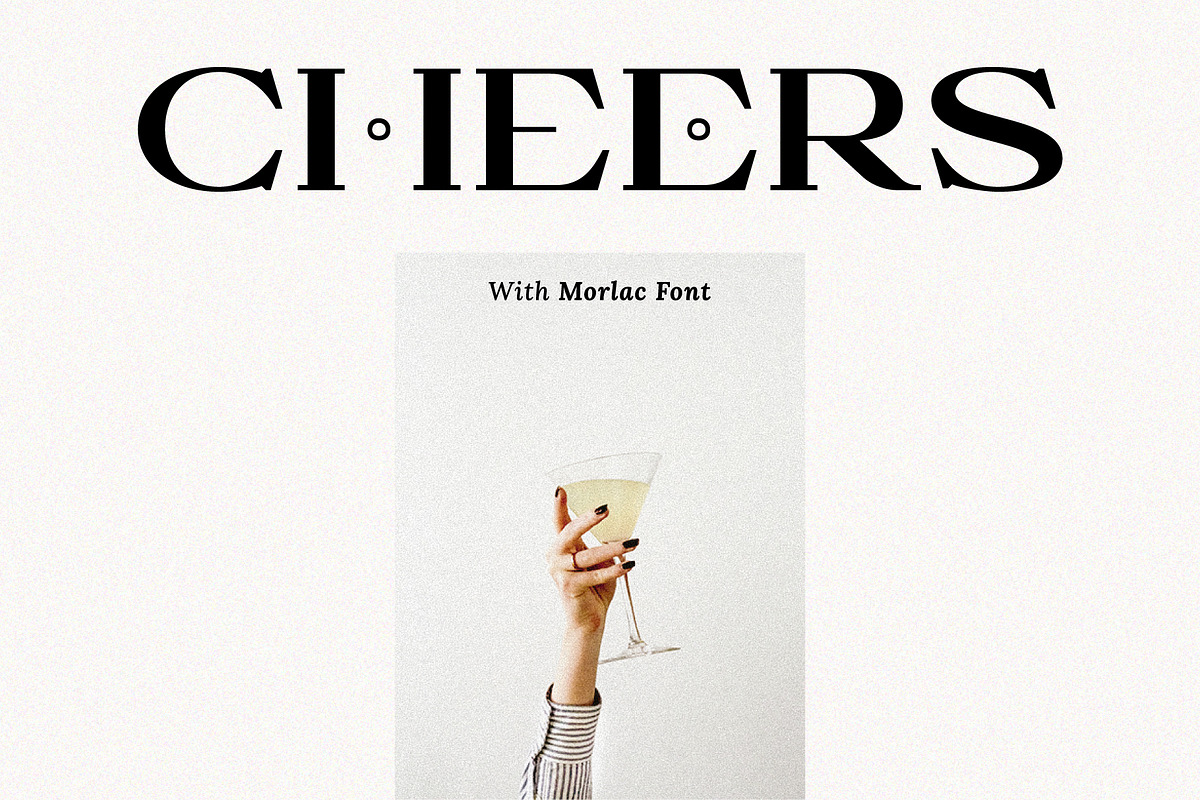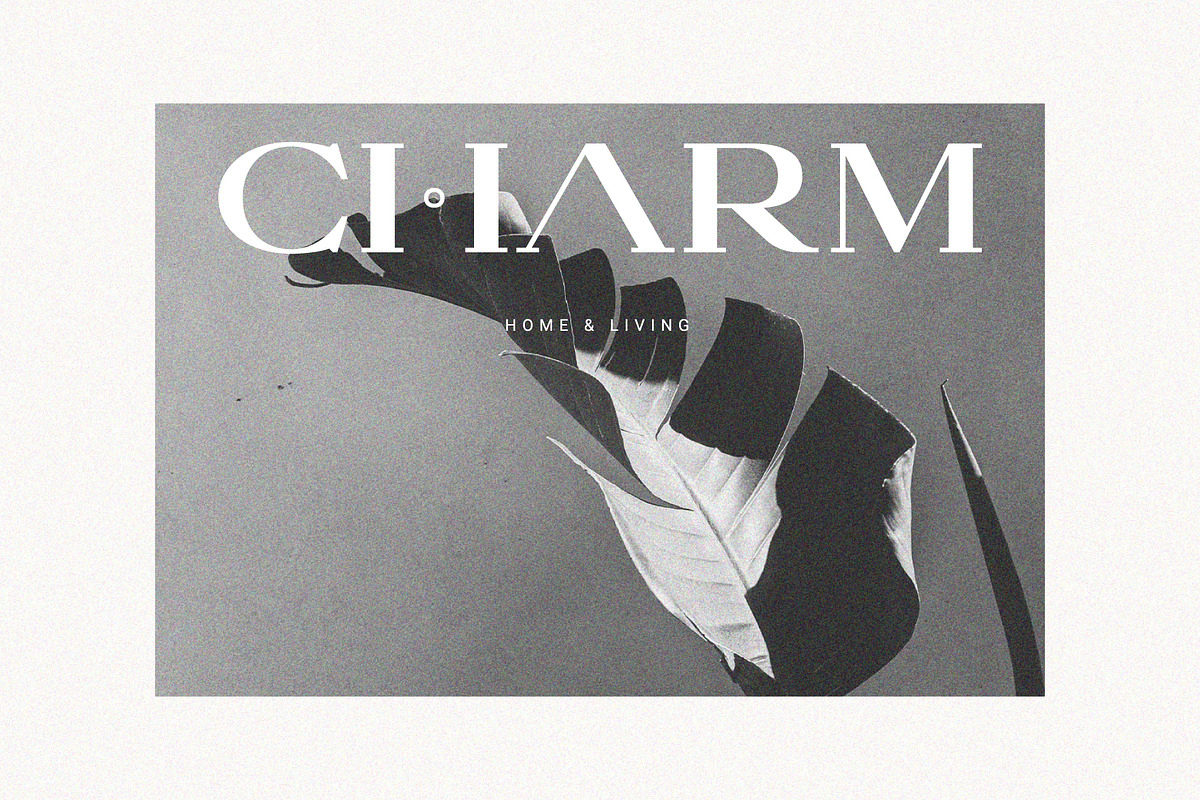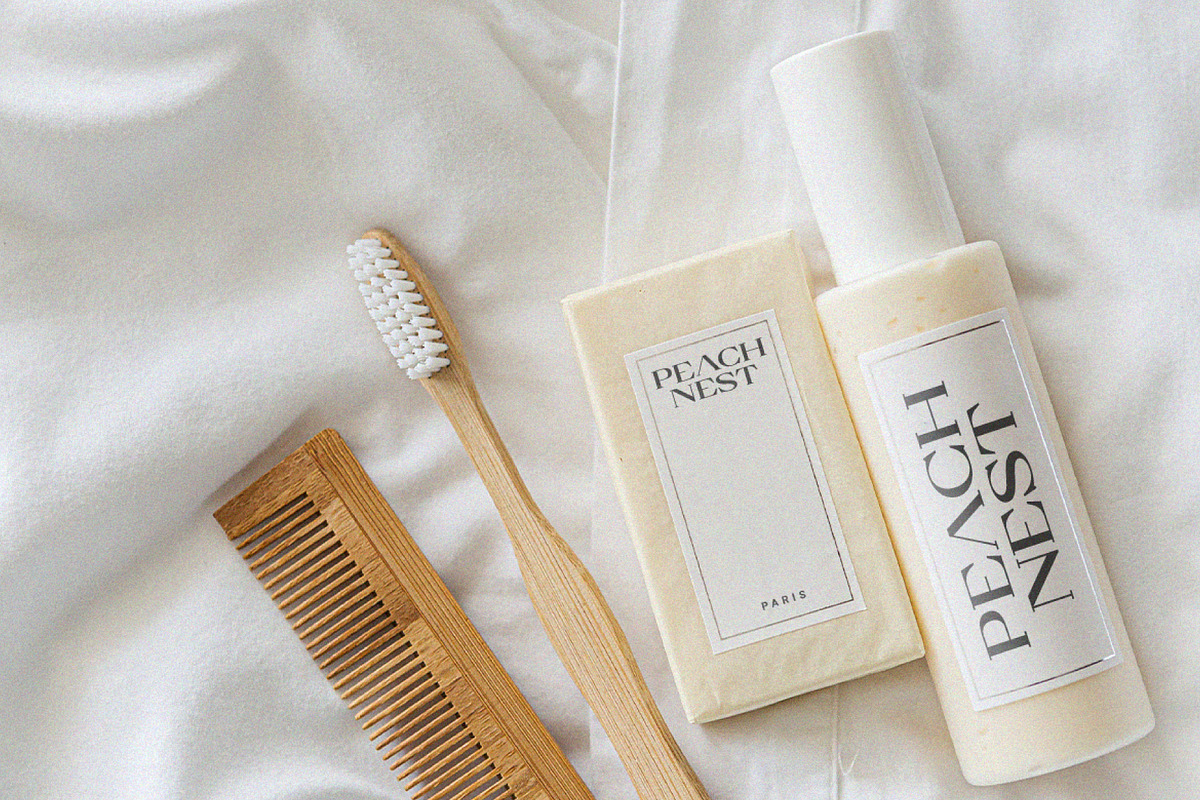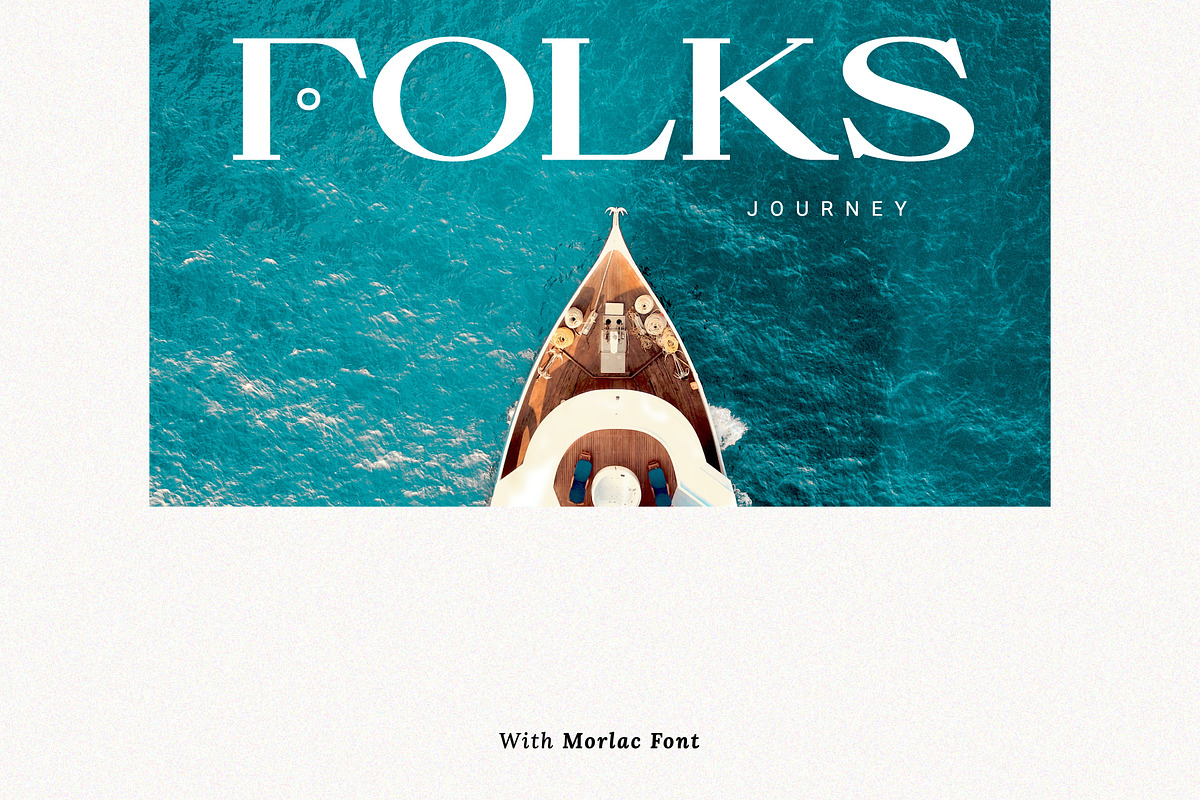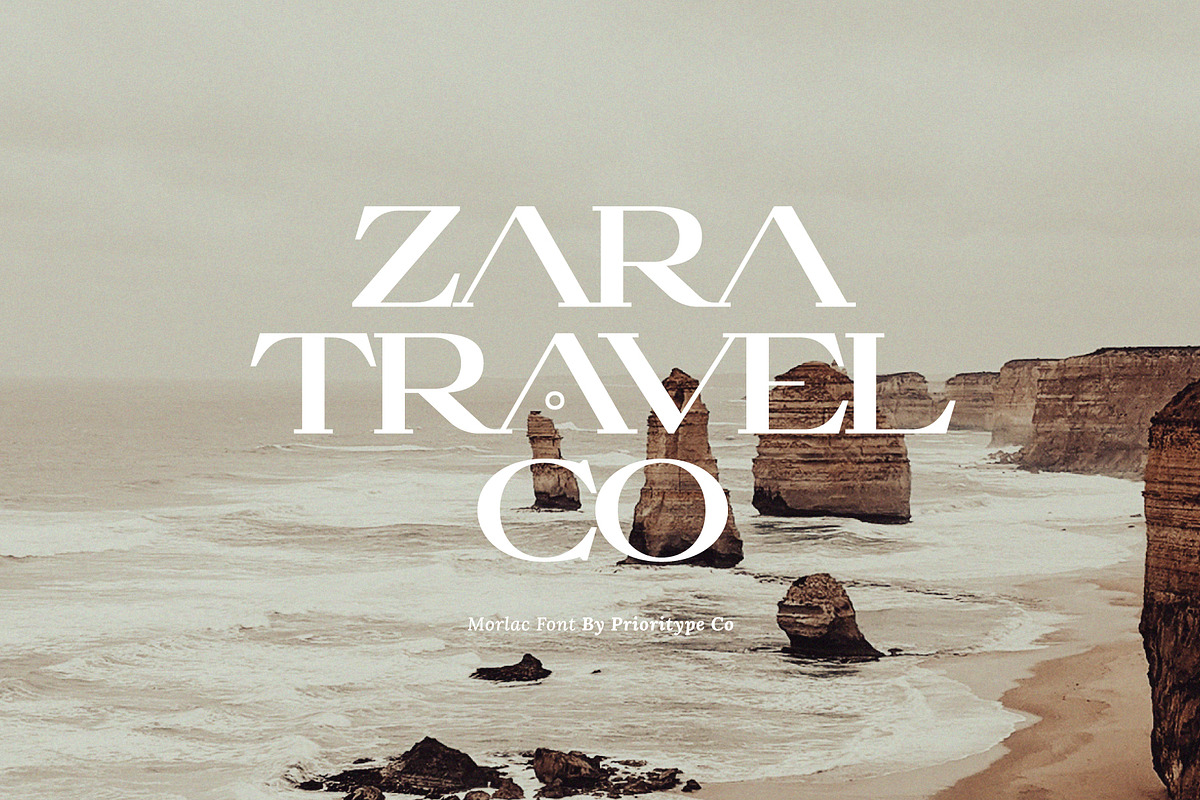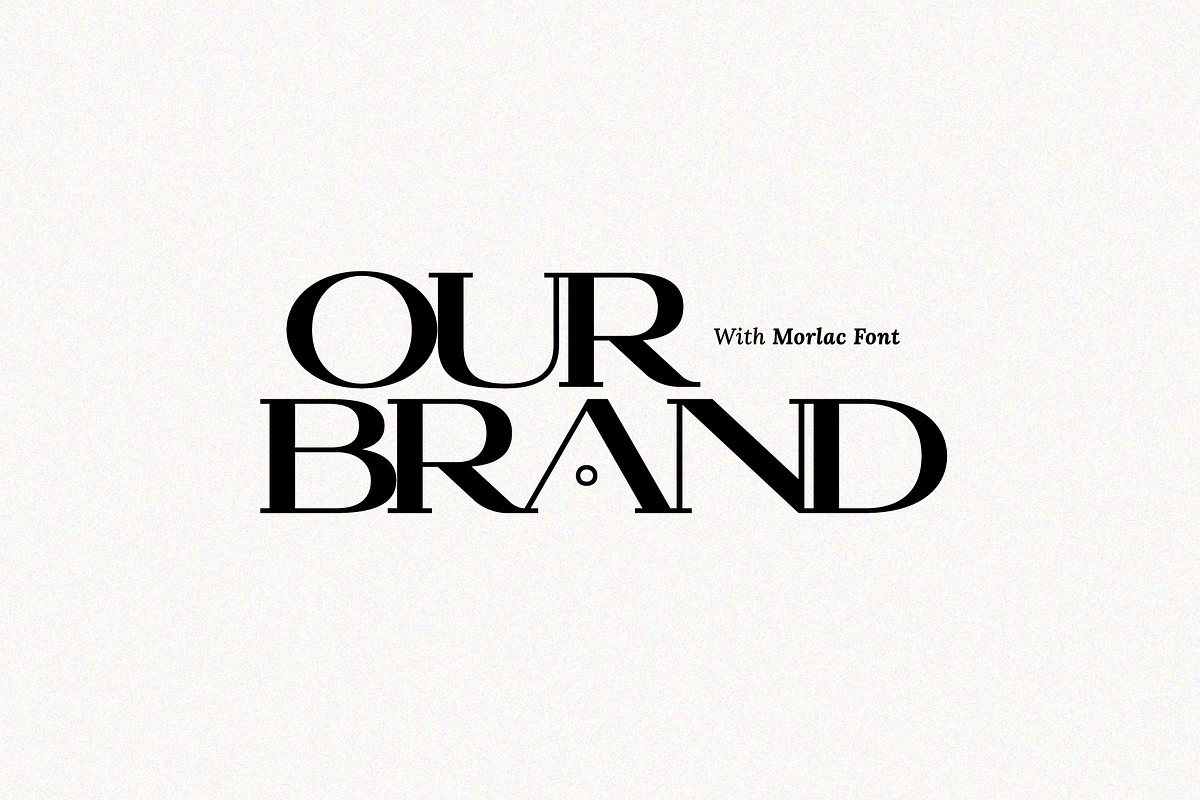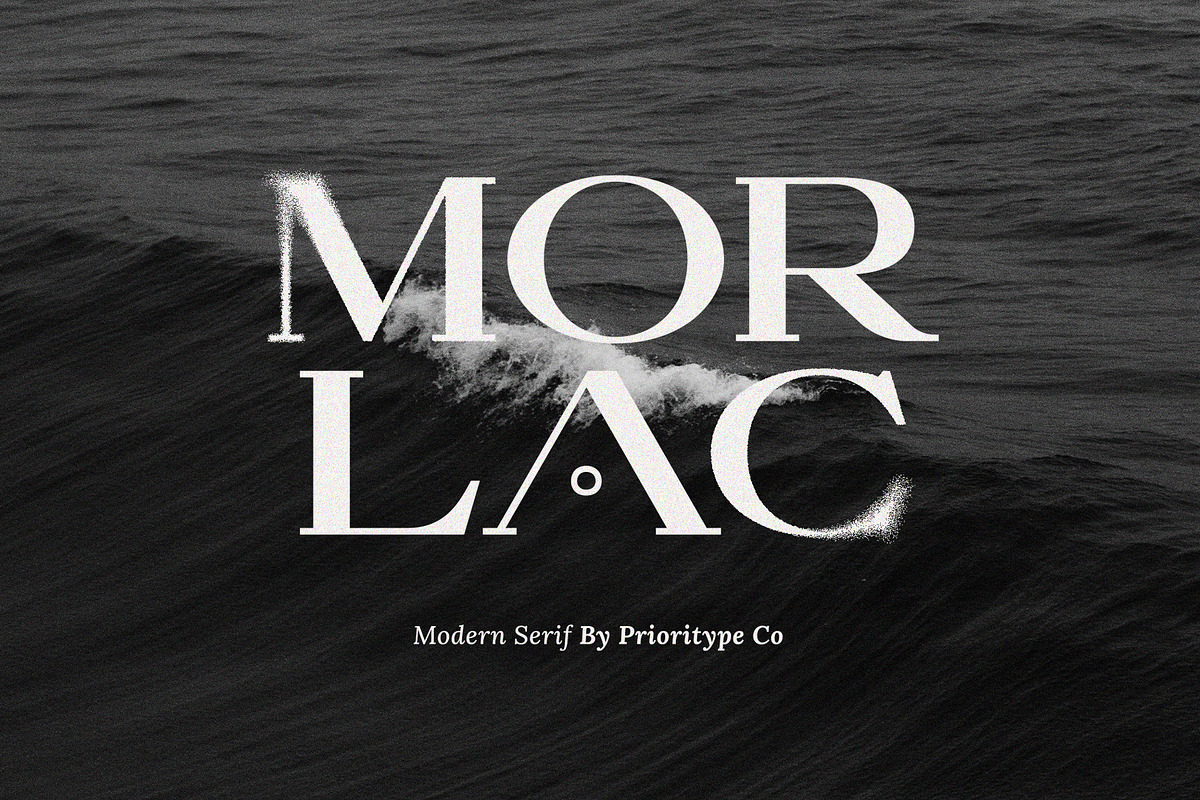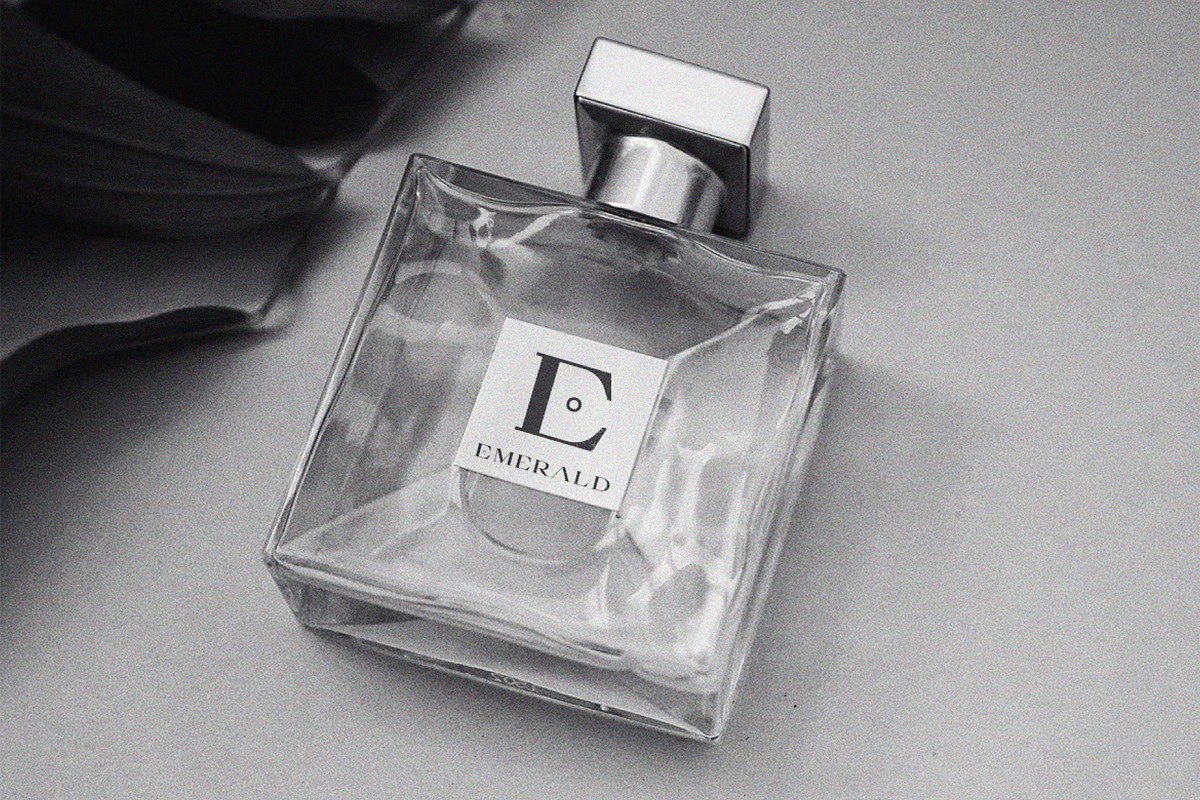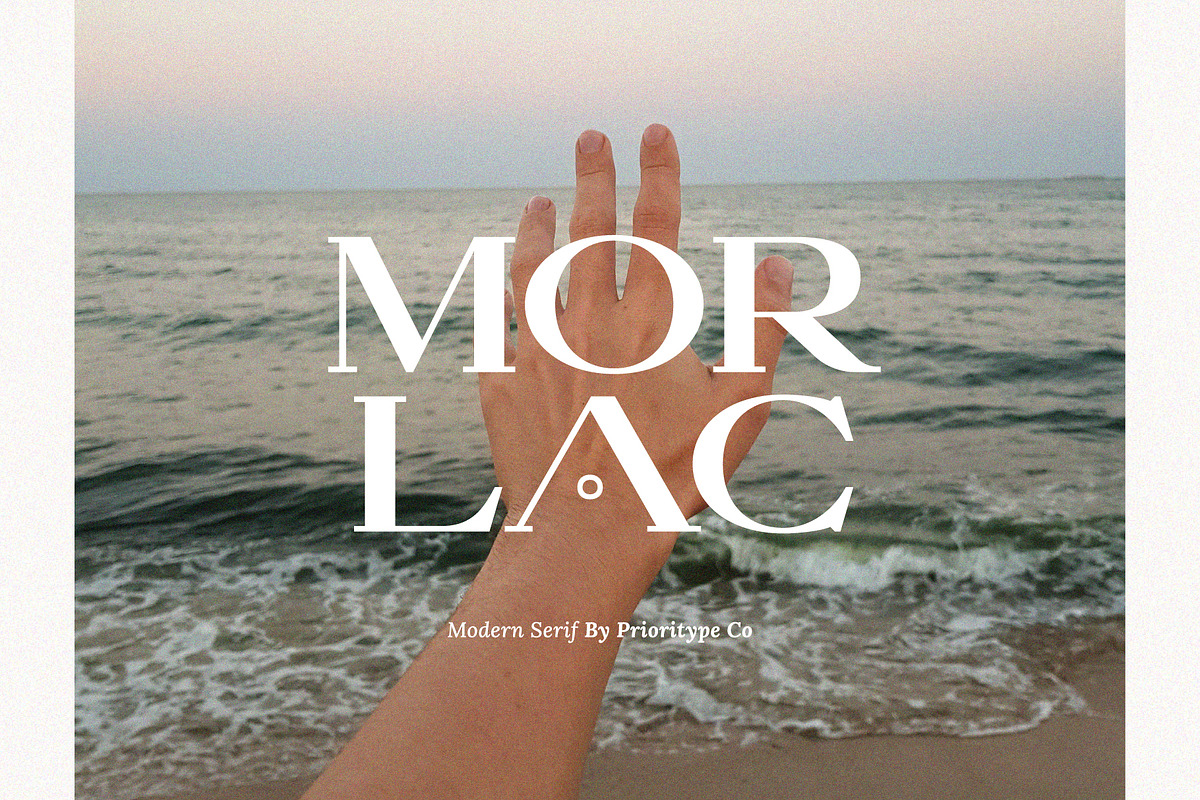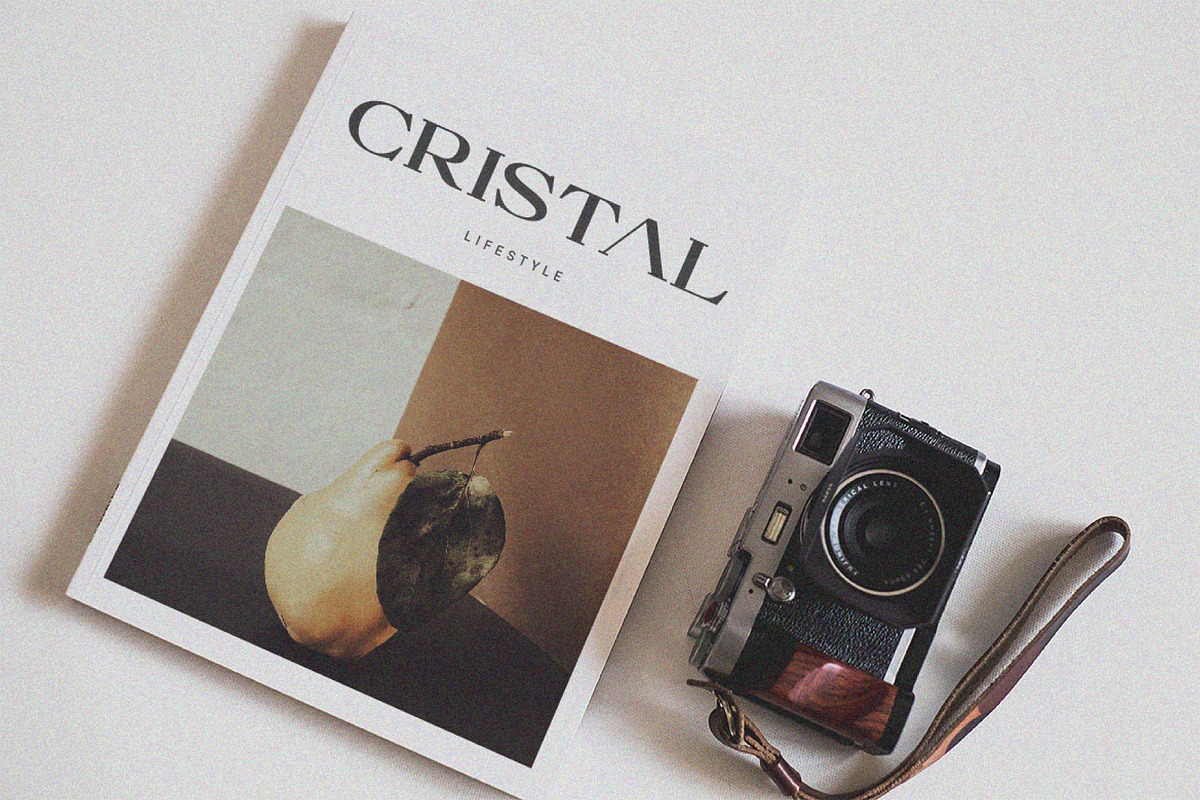
Morlac - Modern Serif
Morlac - Modern Serif.
A simple modern serif font that looks luxurious. This is an all caps font. But there are some differences in certain letters such as A, E, F, H and Q. It is suitable for branding designs, logos, headlines etc.
- Features: Uppercase, Lowercase, Numeral, Punctuation & Multilingual.
- Multilingual contained: Afrikaans, Albanian, Asu, Basque, Bemba, Bena, Breton, Catalan, Chiga, Cornish, Danish, Dutch, English, Estonian, Filipino, Finnish, French, Friulian, Galician, German, Gusii, Indonesian, Irish, Italian, Kabuverdianu, Kalenjin, Kinyarwanda, Luo, Luxembourgish, Luyia, Machame, Makhuwa-Meetto, Makonde, Malagasy, Manx, Morisyen, North Ndebele, Norwegian Bokmål, Norwegian Nynorsk, Nyankole, Oromo, Portuguese, Quechua, Romansh, Rombo, Rundi, Rwa, Samburu, Sango, Sangu, Scottish Gaelic, Sena, Shambala, Shona, Soga, Somali, Spanish, Swahili, Swedish, Swiss German, Taita, Teso, Uzbek (Latin), Volapük, Vunjo, Zulu.